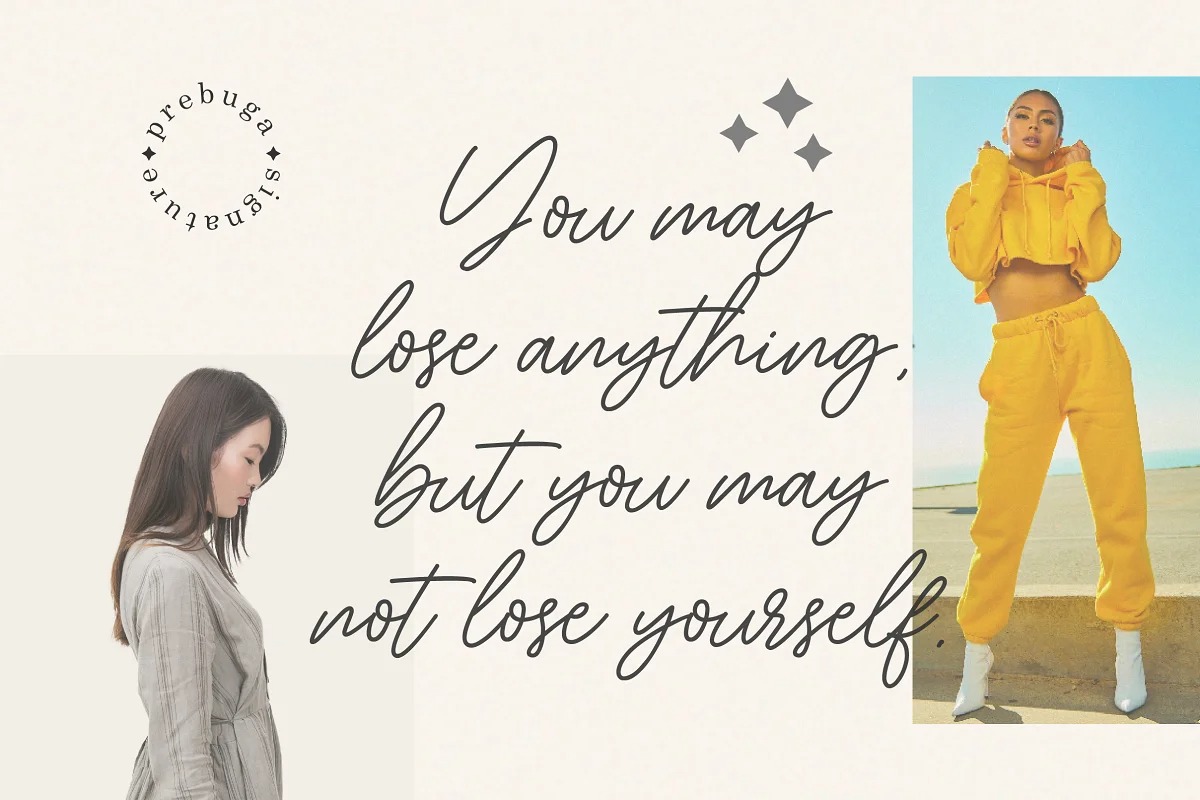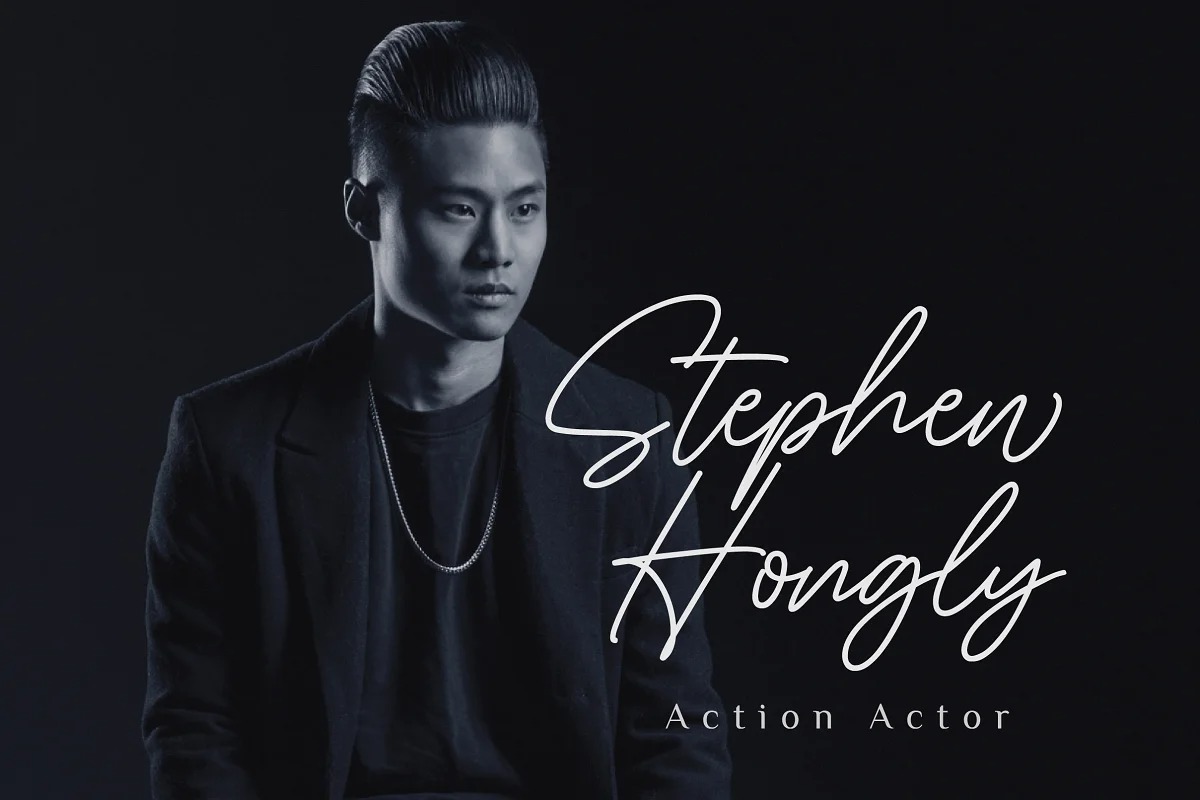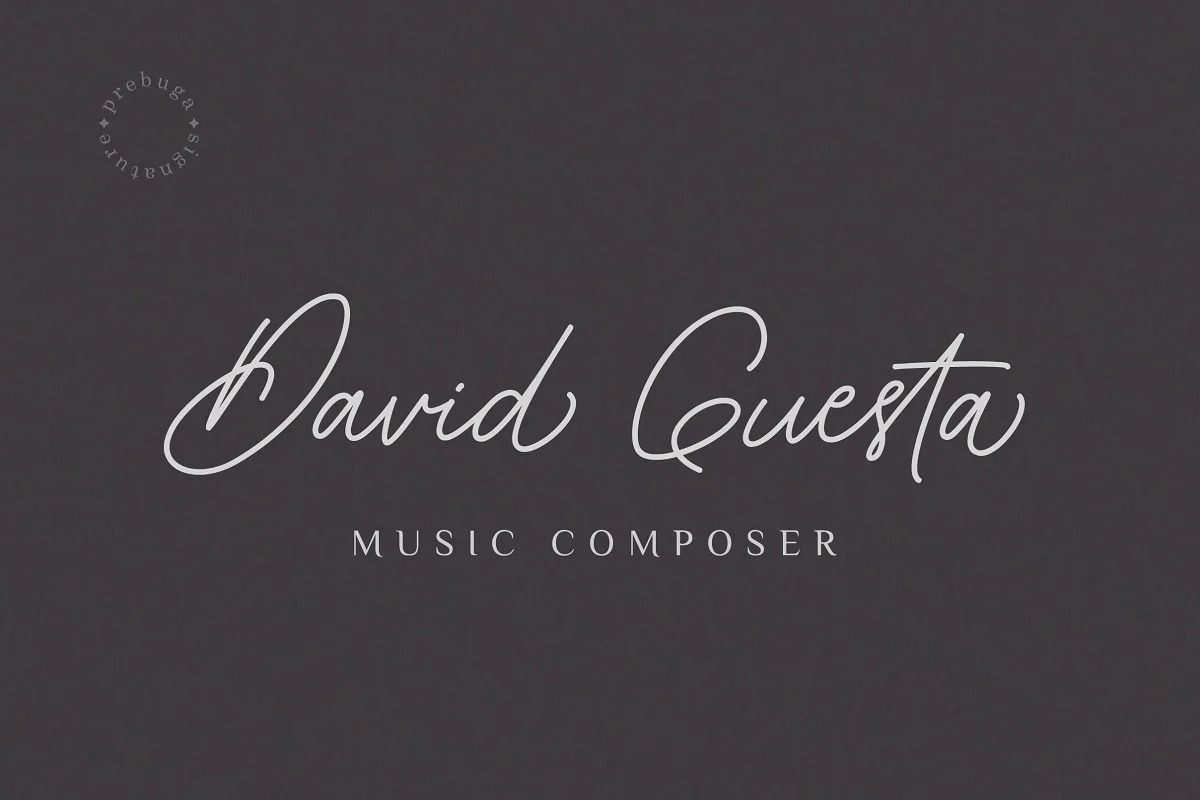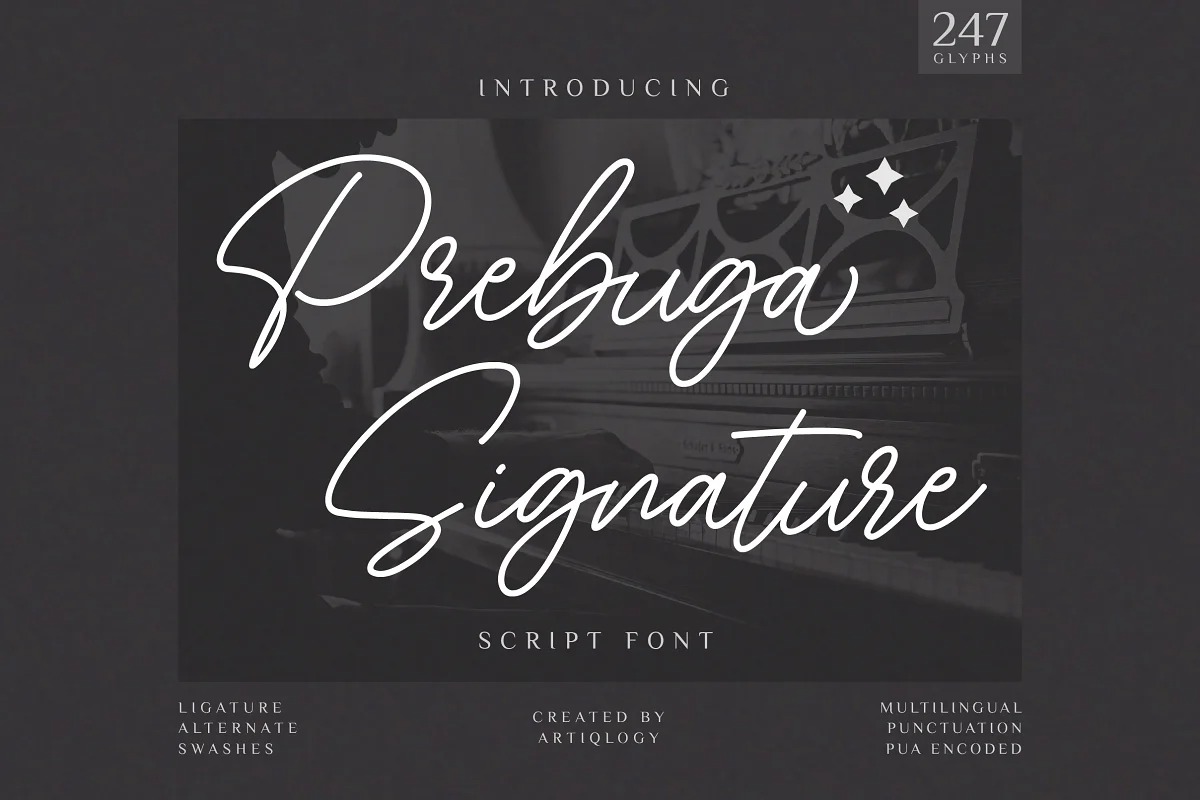
Prebuga Signature Font
Prebuga Signature Script Font
This is a signature typeface with natural hand drawn, clean mono-line stroke, slant and fun character with lowercase alternate and ligatures. Fall for its ravishing style and use it to create gorgeous wedding invitations, beautiful stationary art, eye-catching social media posts, and much more!